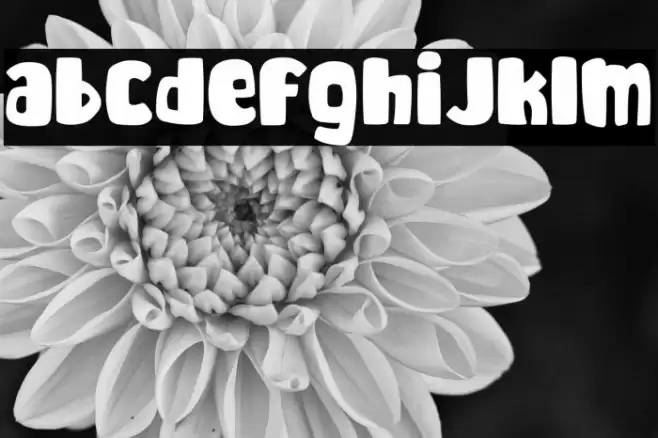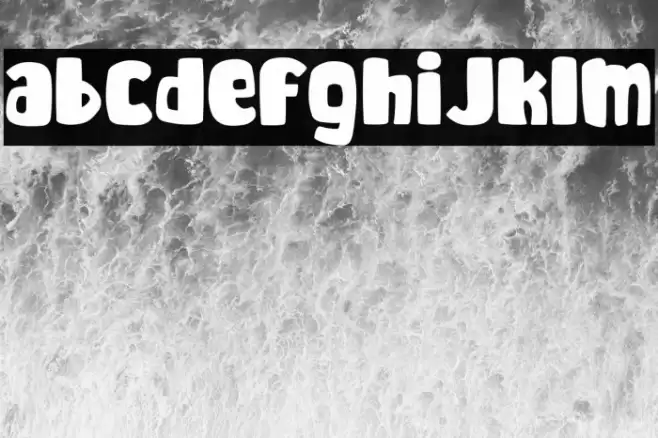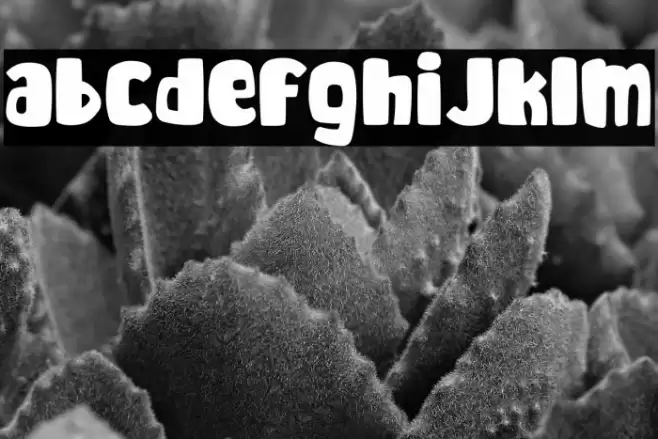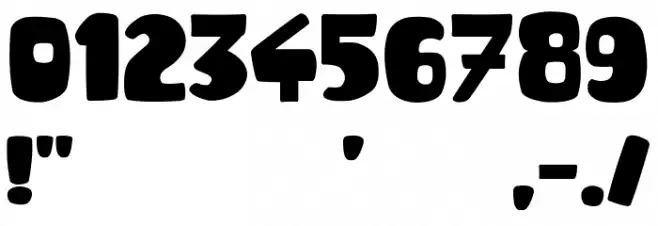
Enough Cute For You Font
Enough Cute For You Description
This playful and bold font features rounded, chunky letters that exude a sense of fun and whimsy. The characters are designed with a consistent thickness, giving them a uniform appearance that enhances readability. The font's unique style is characterized by its exaggerated curves and slightly irregular shapes, which add a touch of personality and charm. The numbers and special characters maintain the same playful aesthetic, making this font suitable for a variety of creative projects. Its boldness ensures that it stands out, making it perfect for headlines or any design that requires a strong visual impact.
A playful, bold font with rounded, chunky letters and a whimsical style from Uncategorized fonts.
- Font: Enough Cute For You
- Proposed Projects: Ideal for children's books, playful branding, party invitations, and eye-catching headlines.
- Overall Style: Playful, Whimsical